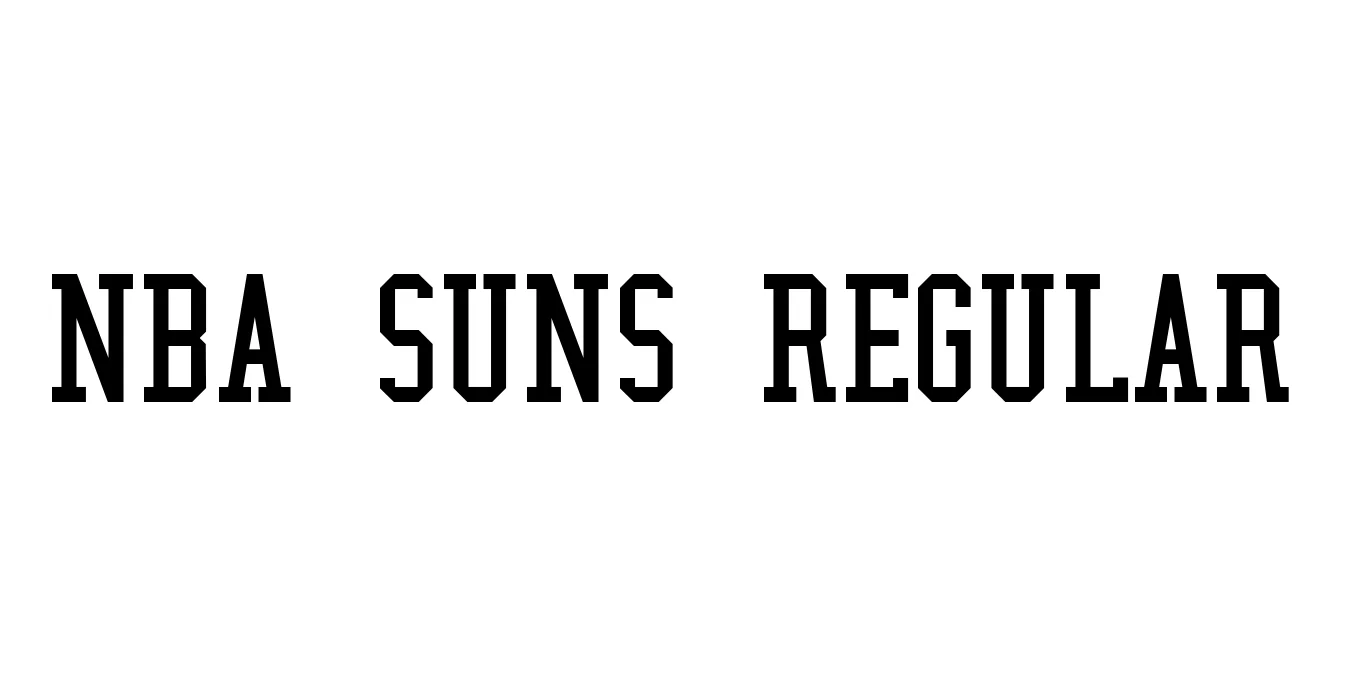
NBA Suns Regular
Designed by NBA Properties, Inc.
| Category | Sports / Display |
| Designer | NBA Properties, Inc. |
The NBA Suns Regular font is a specialized display typeface meticulously crafted for the visual identity of the Phoenix Suns basketball team. This font serves as a core element of the team's branding, embodying the energy, heat, and sharp precision associated with the Arizona-based franchise. Its design language is deeply rooted in modern sports aesthetics, featuring clean lines and distinct angularity that ensure legibility from the stands to the television screen.
Over the years, this typography has evolved to reflect the franchise's growth, particularly during the 'The Valley' branding era. It is primarily used for jersey numbers, player names, and promotional graphics, making it an instantly recognizable symbol for fans worldwide. The typeface strikes a balance between professional athleticism and contemporary geometric design, making it a staple for high-impact sports media and fan engagement materials.
NBA Suns Regular Best Uses
Ideal for jersey designs, fan merchandise, and custom athletic uniforms.
Perfect for high-impact game day posters, flyers, and digital social media banners.
Suited for brands looking to convey a competitive, energetic, and professional image.
Great for sports-themed blogs, fan forums, and tournament tracking websites.